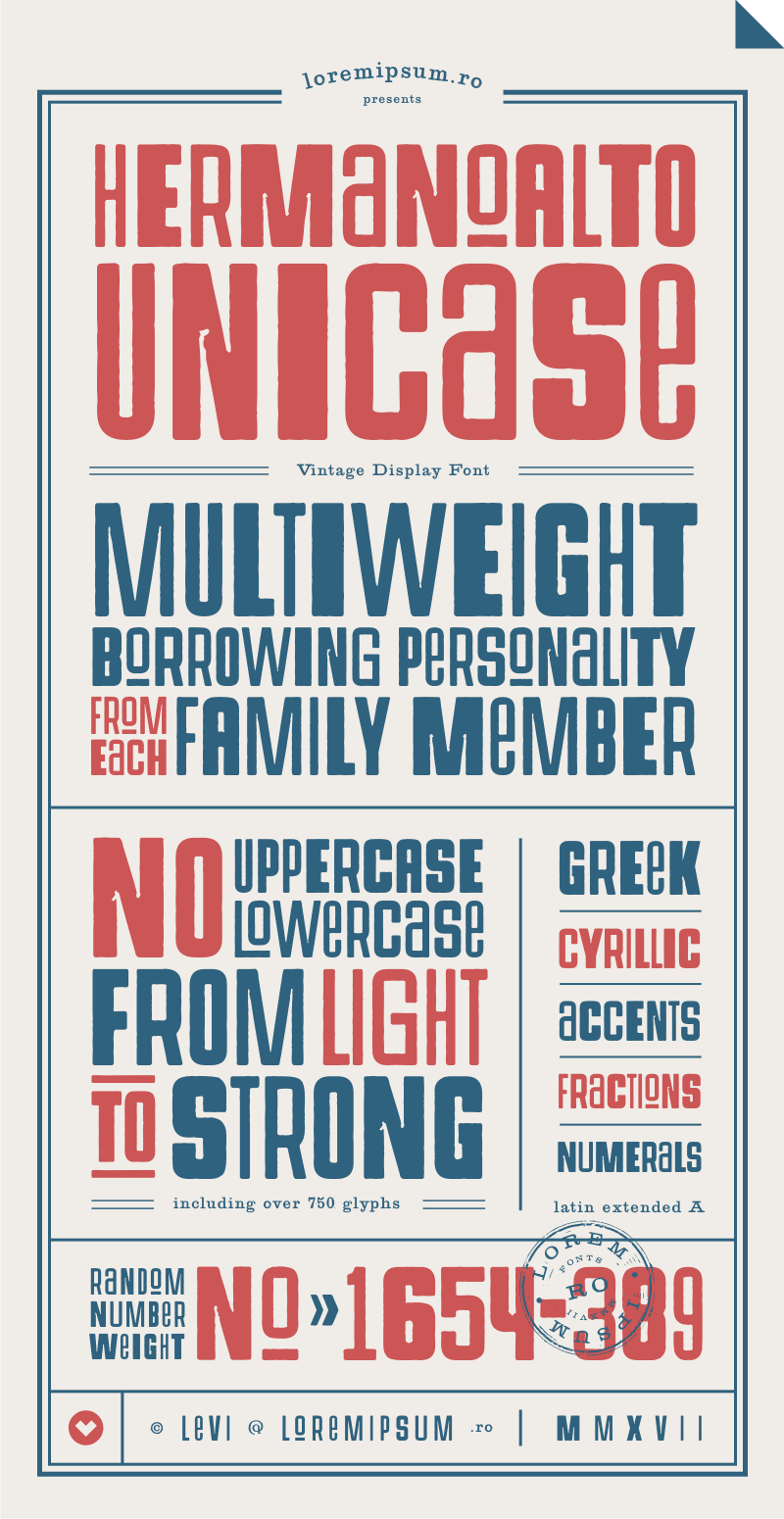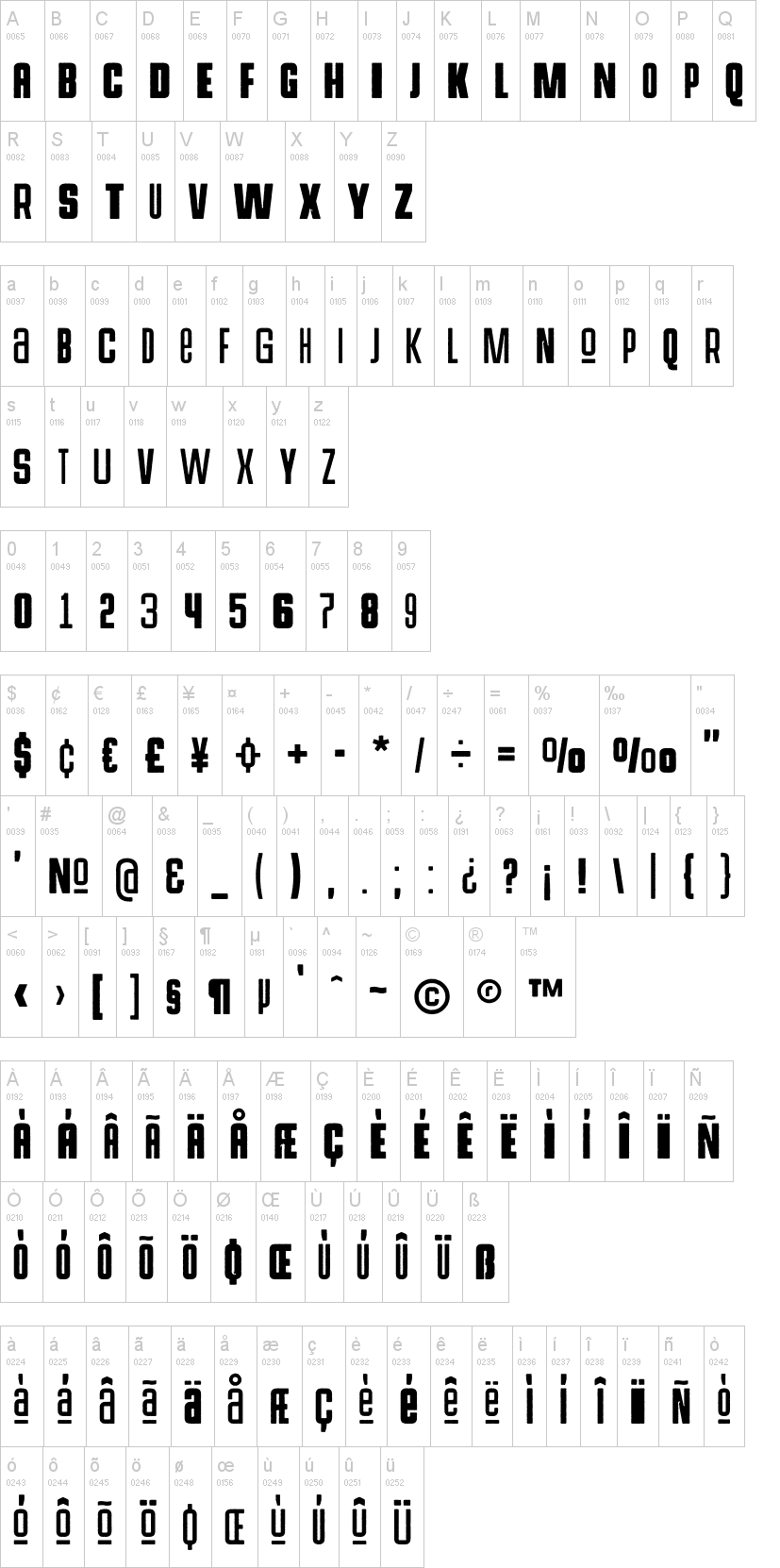
Note of the authorHermanoAlto Unicase contains glyphs from all the fonts in the HermanoAlto family created so far and these were adjusted to have similar heights, but variable widths and styles (includes the Light, Regular and Bold version along a few new new Wide, Extended and Condensed characters). The soft erosion effect was applied to bring this font closer to the look of poster designs made until the middle of twentieth century.